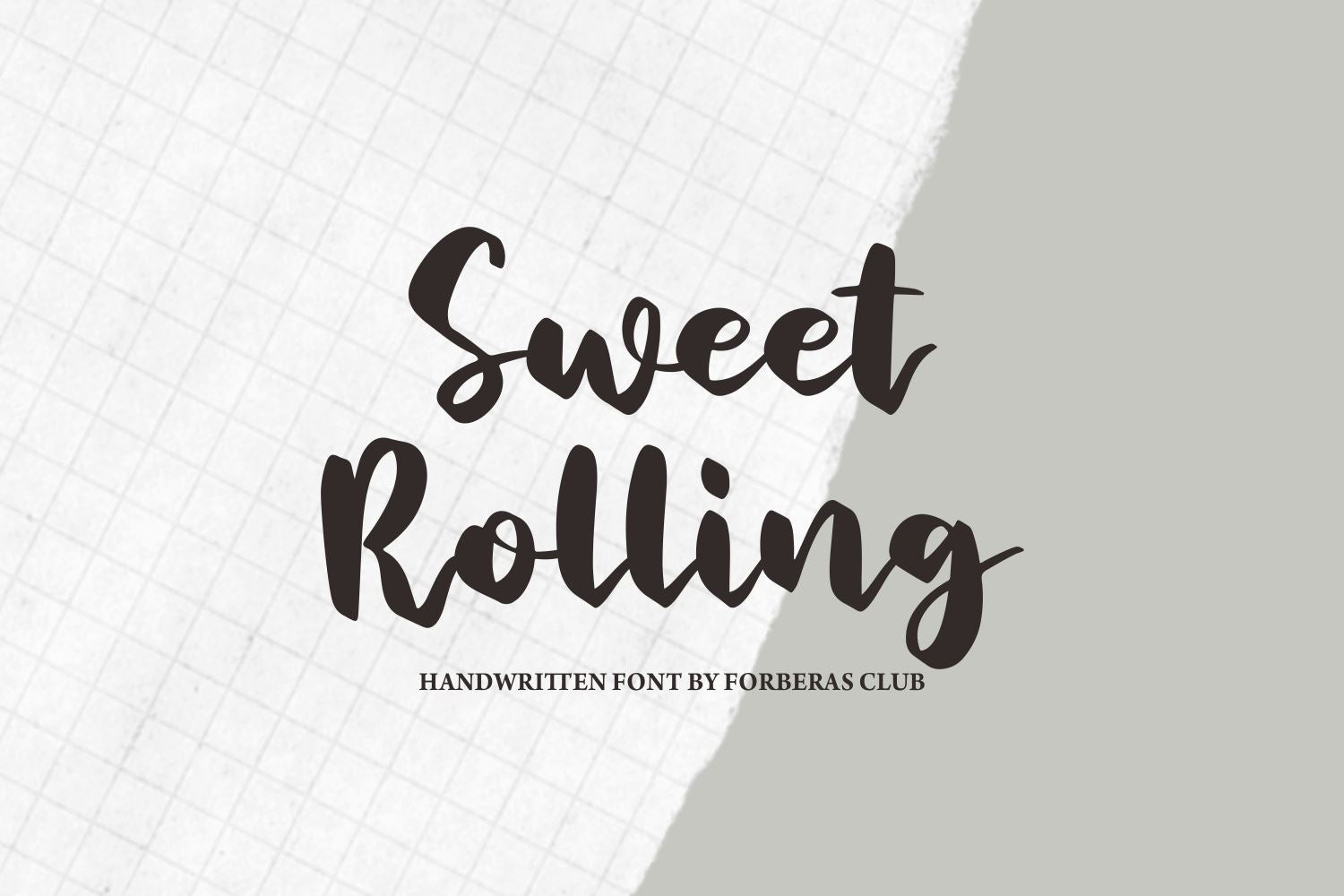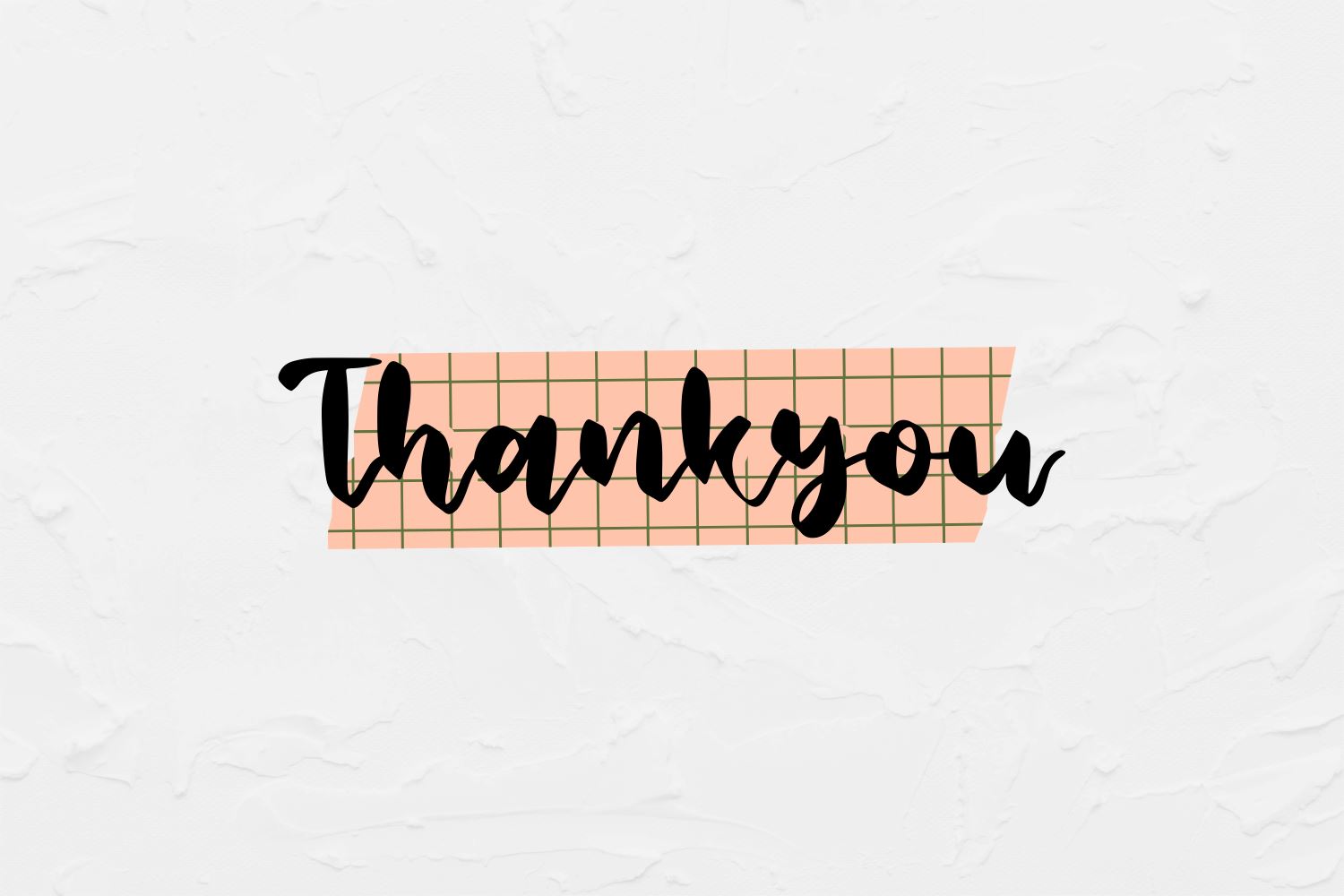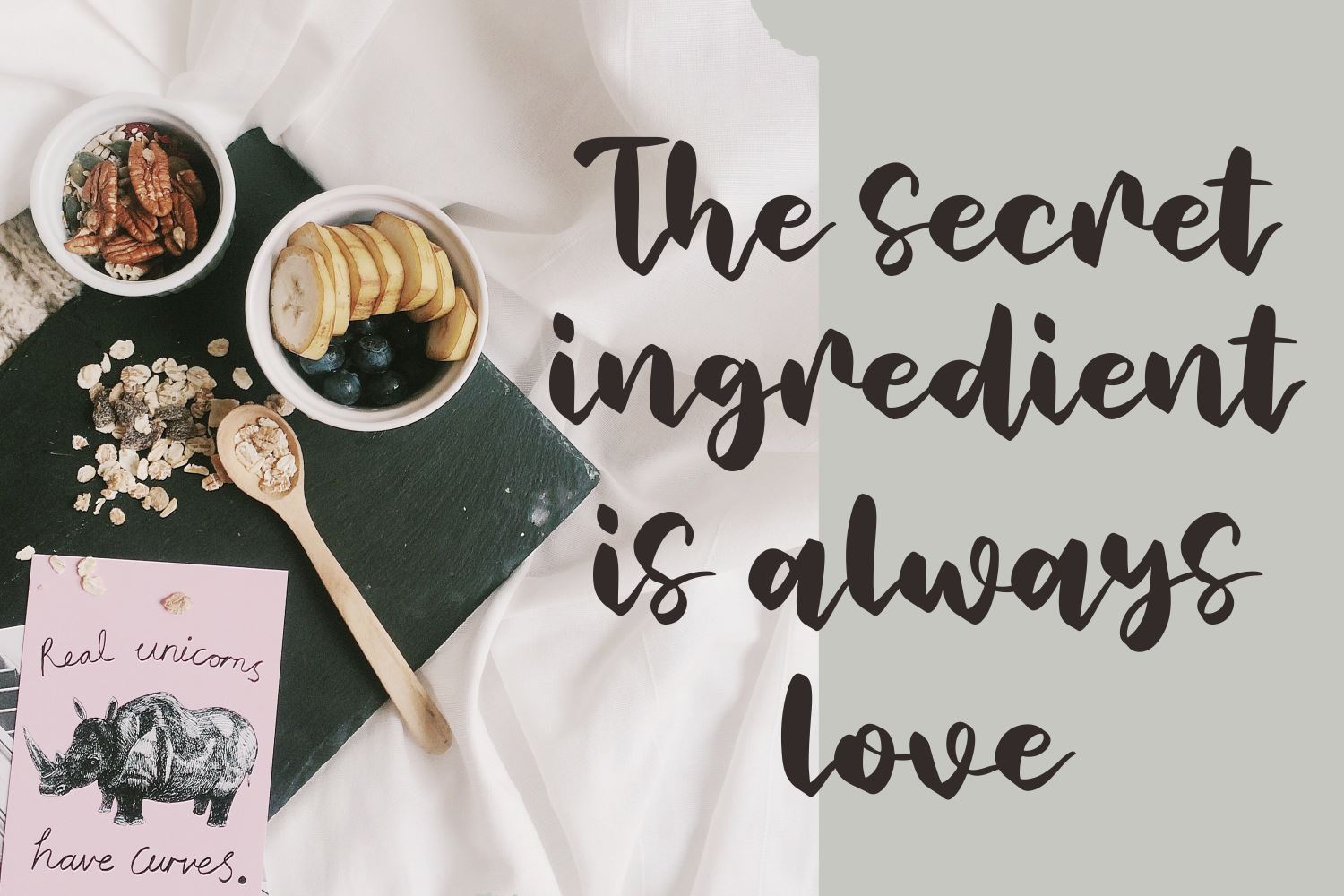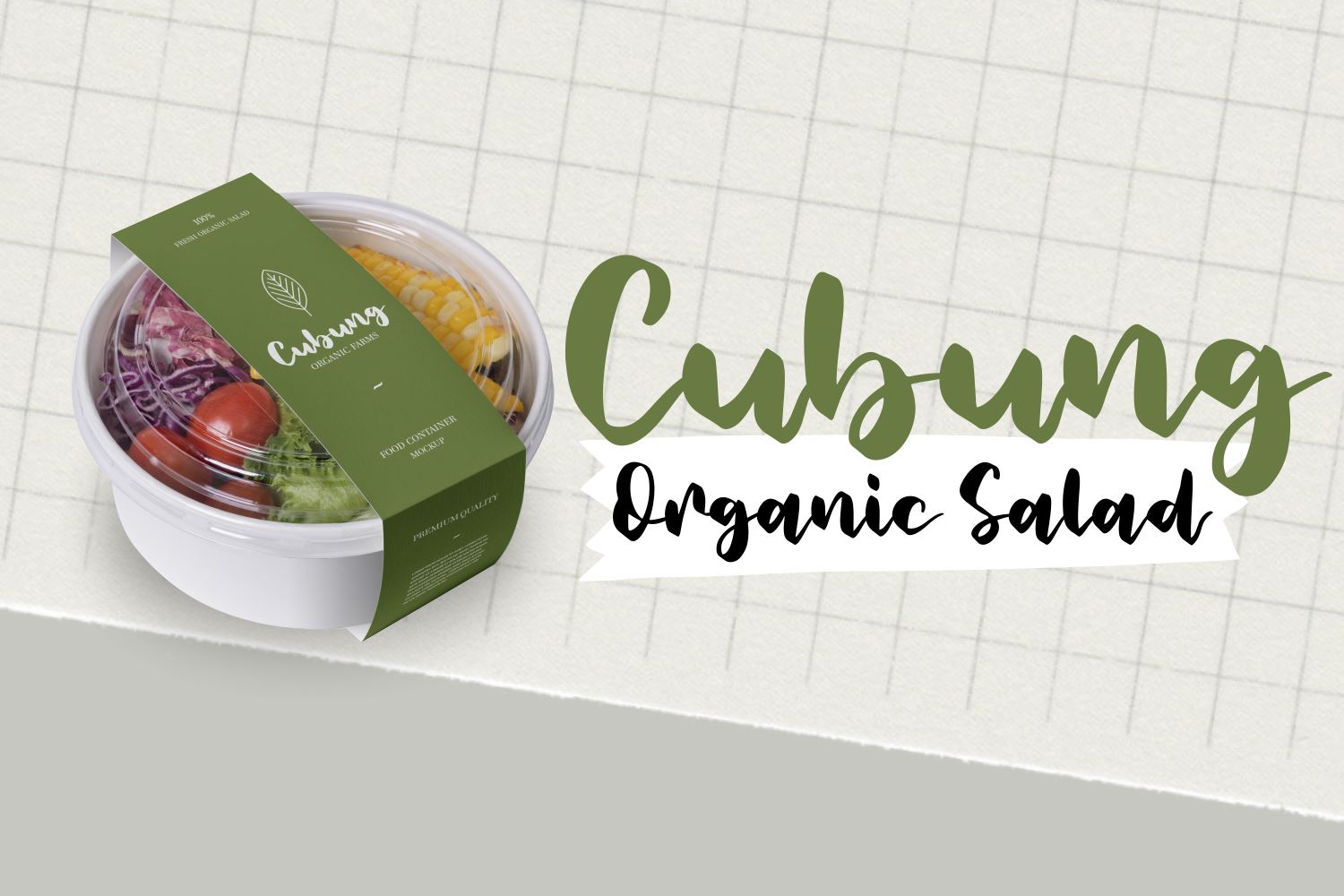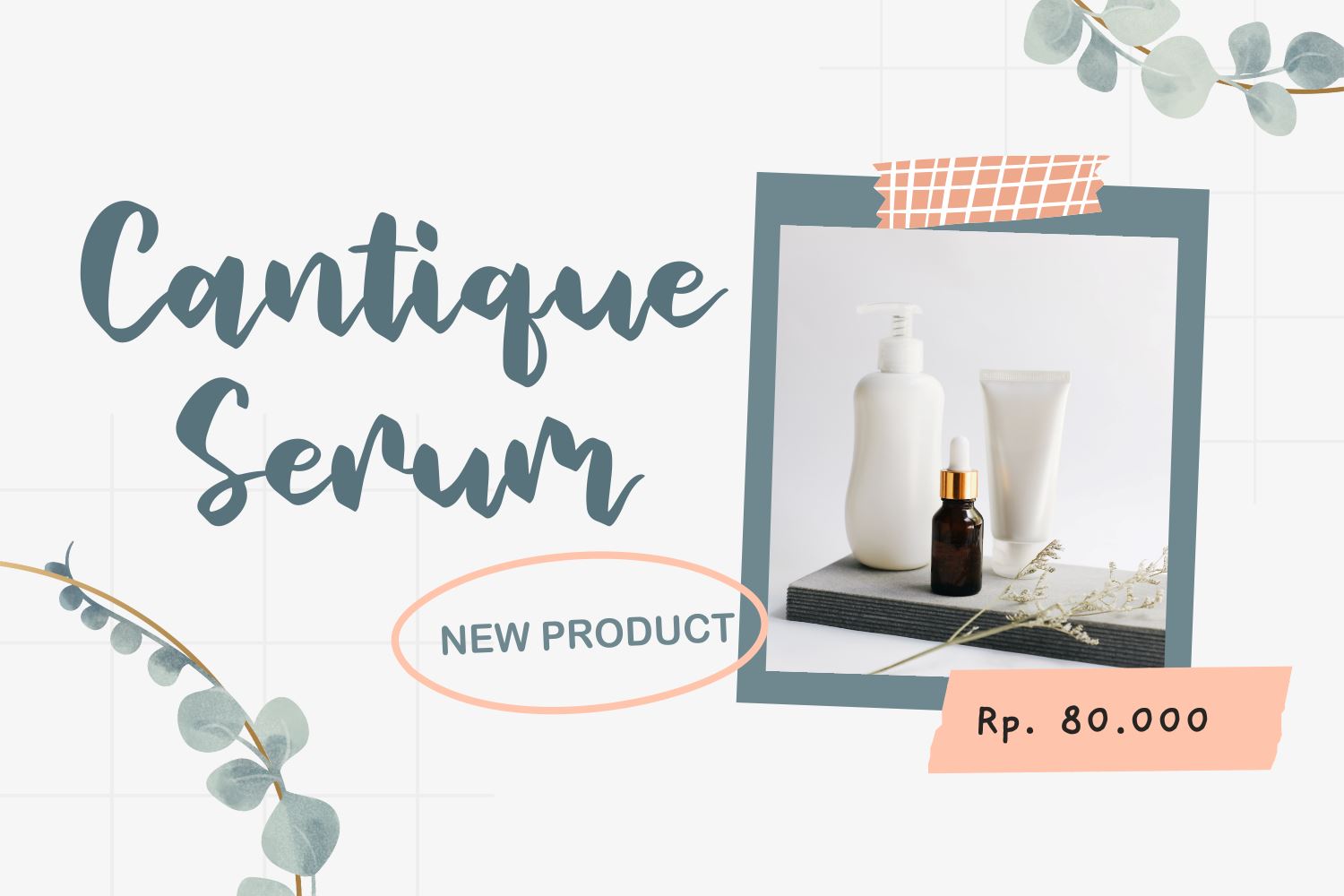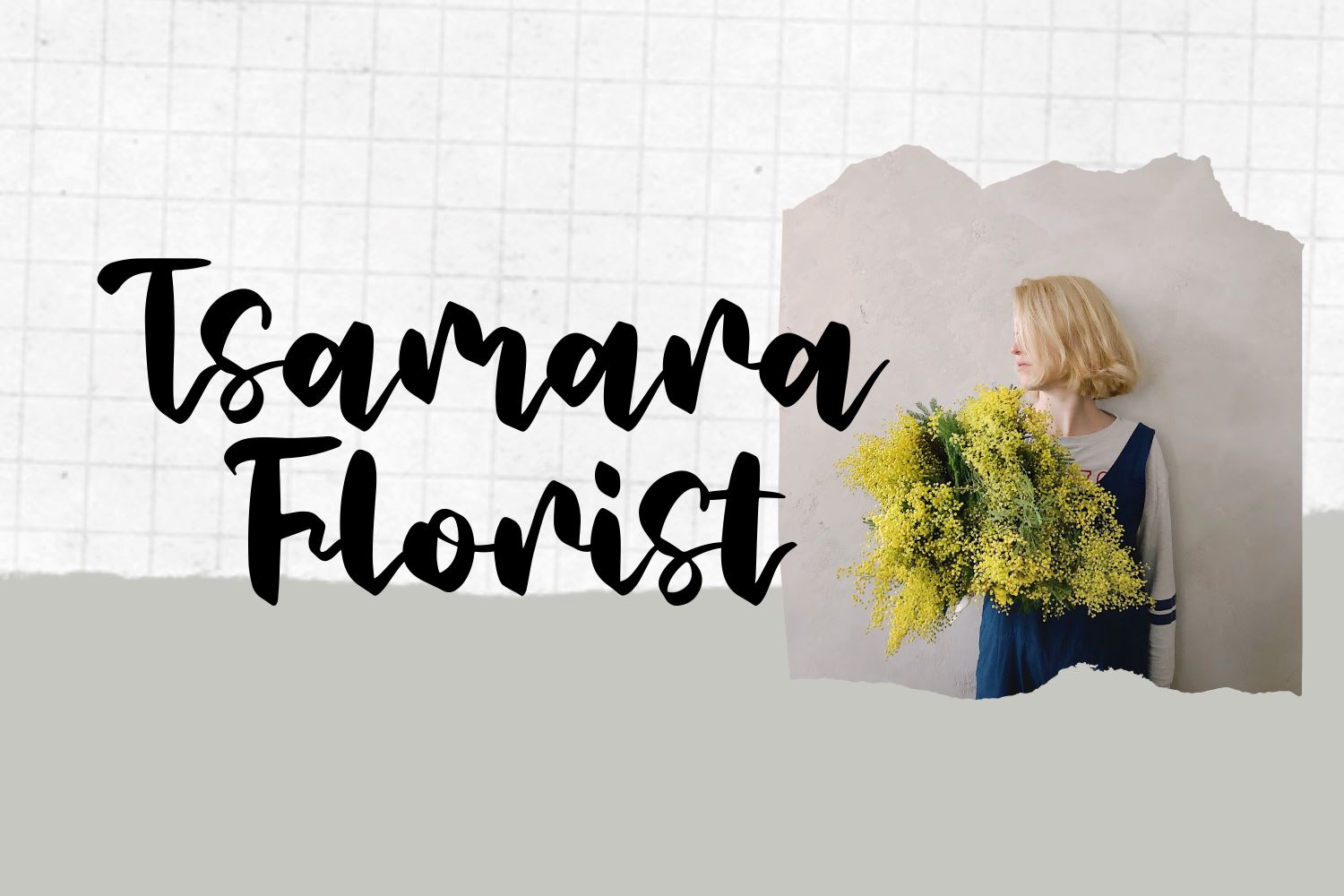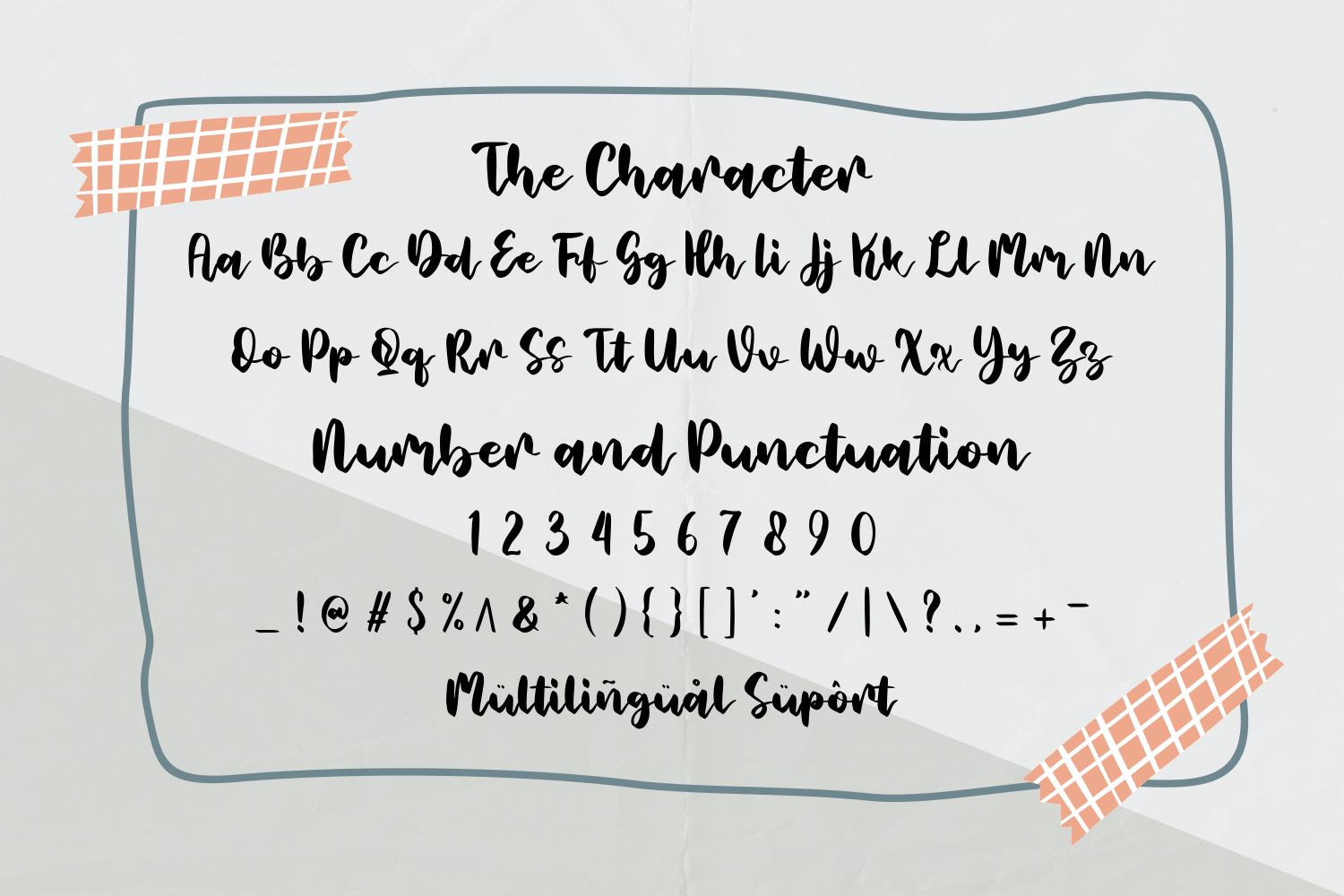
Sweet Rolling
About Sweet Rolling
Introducing Sweet Rolling Font by Forberas Club Sweet Rolling is a Modern Handwritten Font. Sweet Rolling perfect for book cover, product packaging, branding project, megazine, social media, skate zine, band font, or just used to express words above the background. This font includes TTF and OTF, This font also multilingual support.